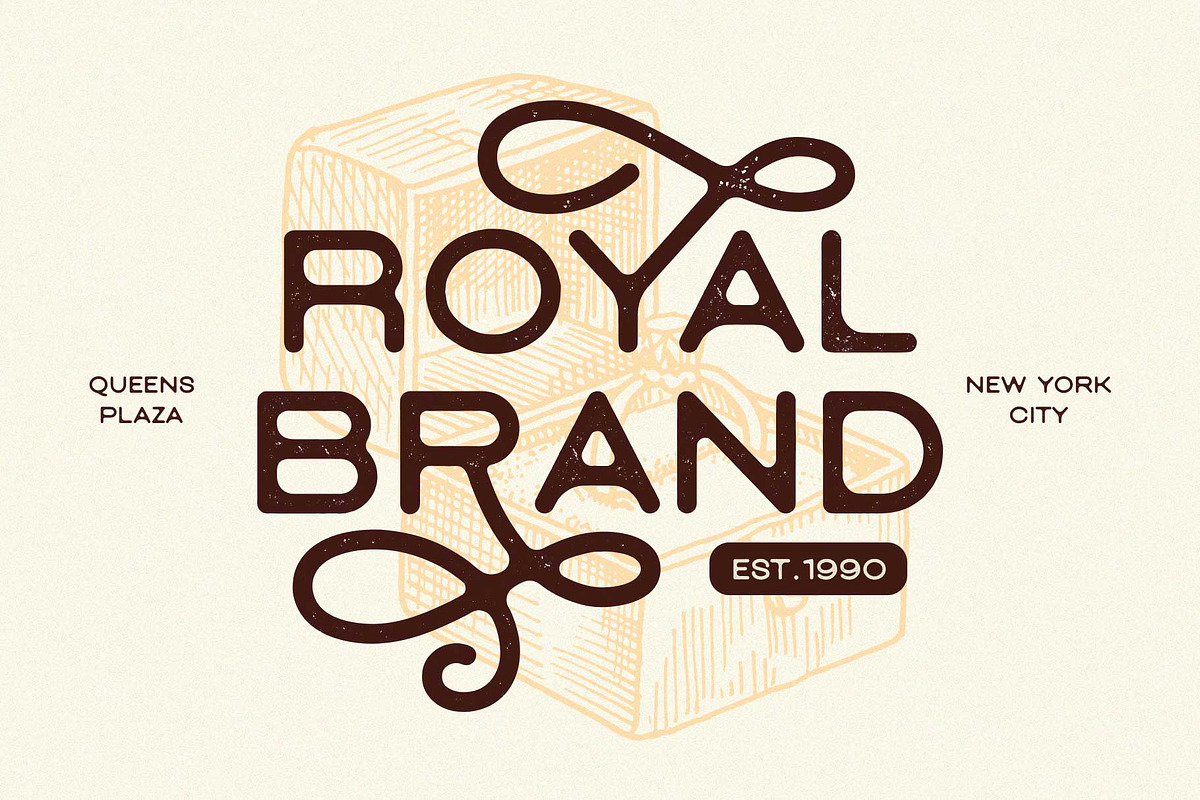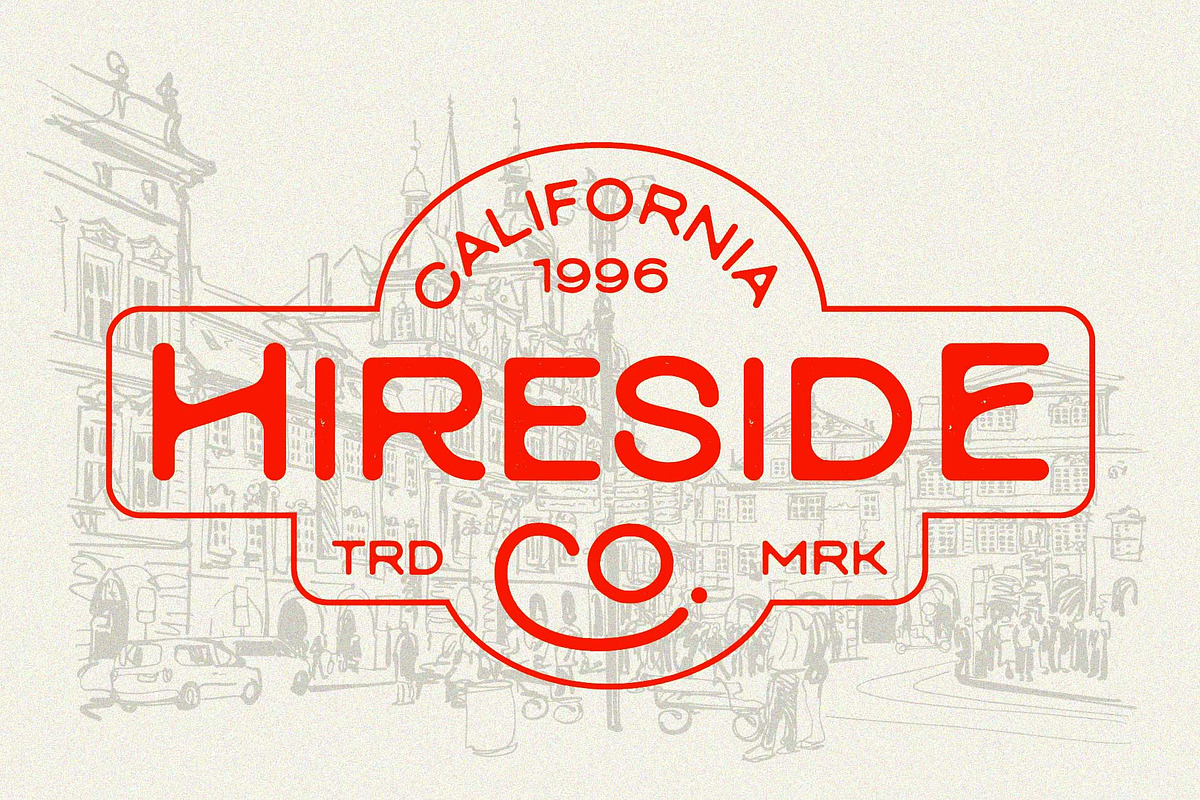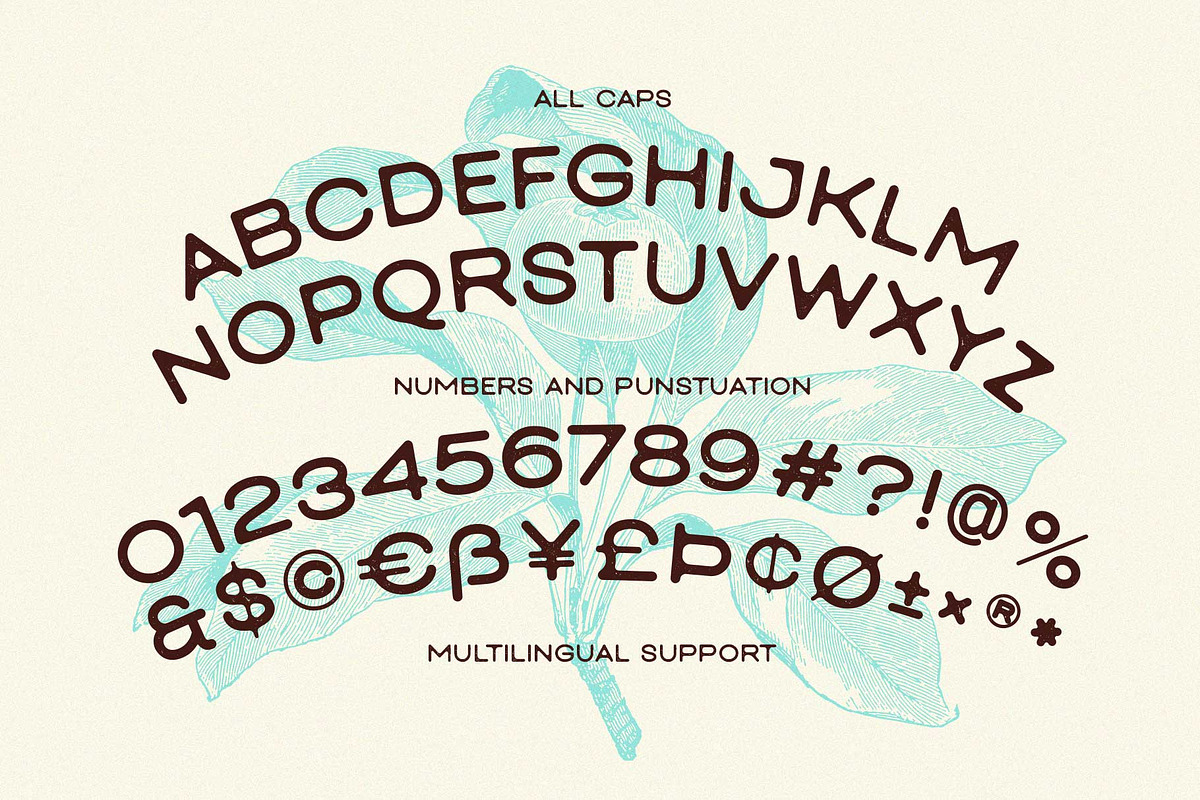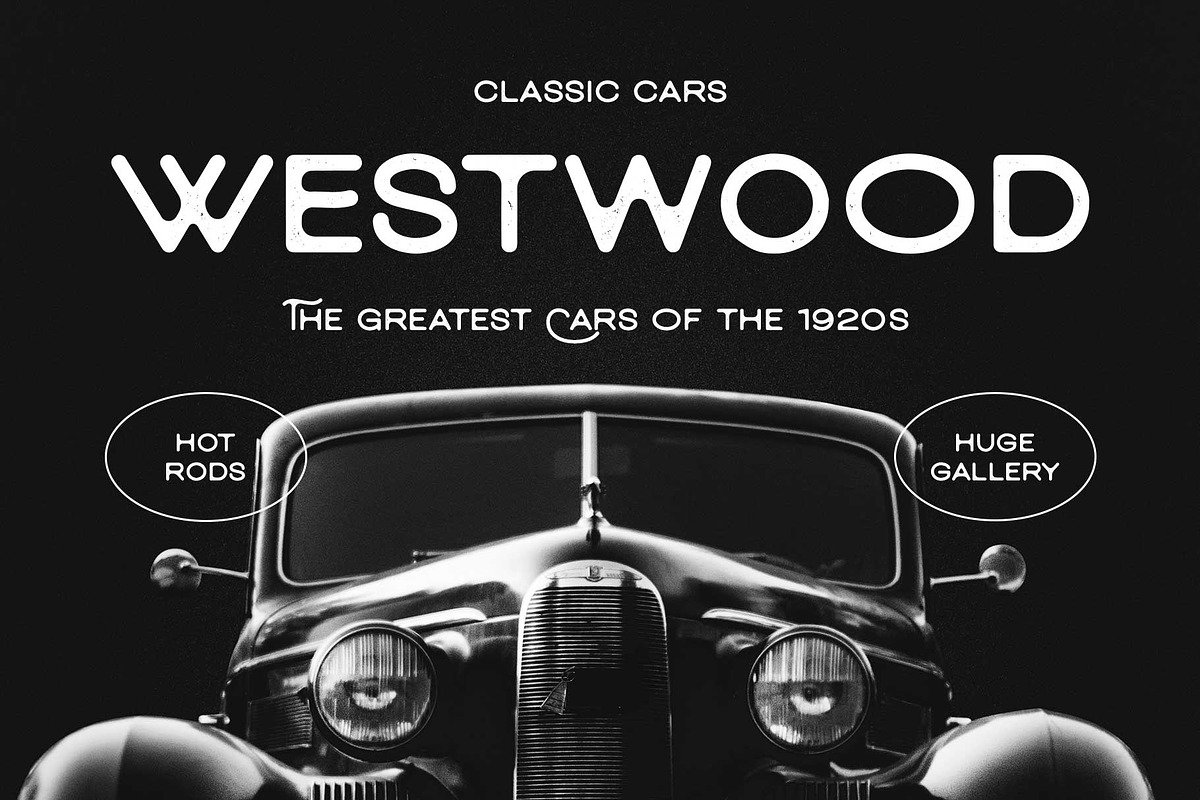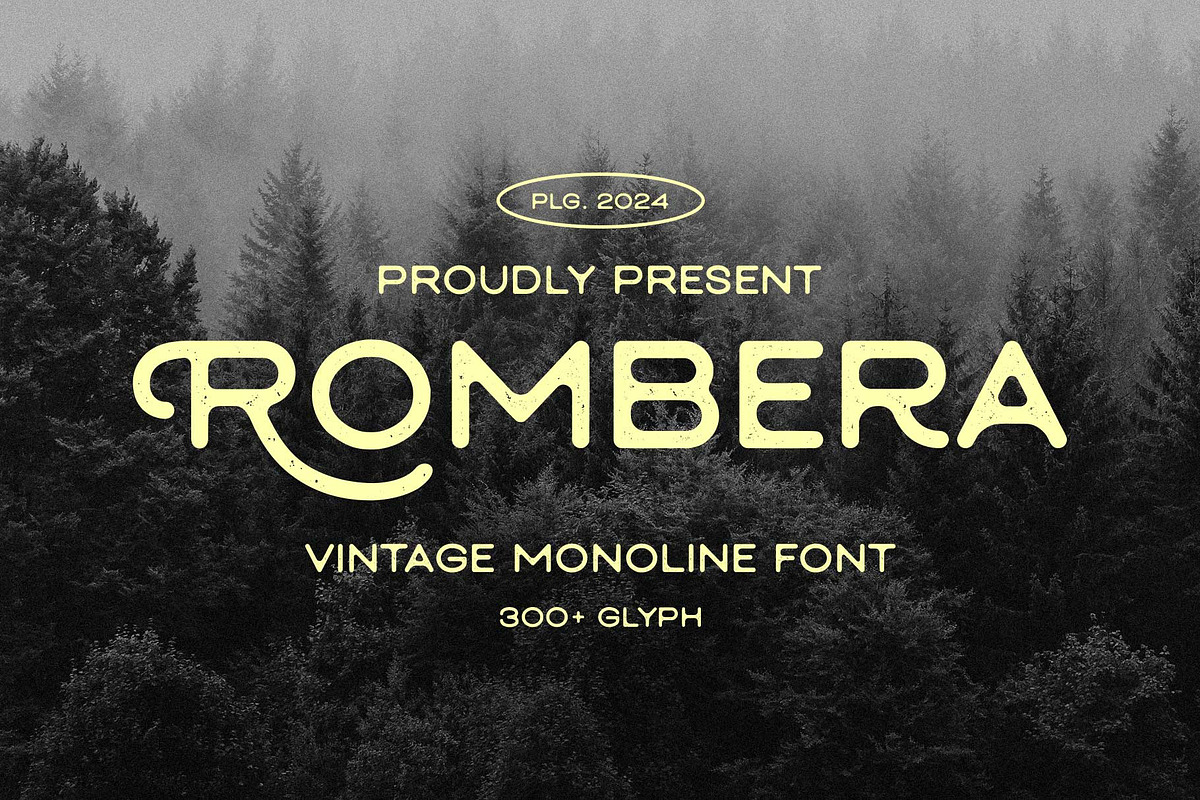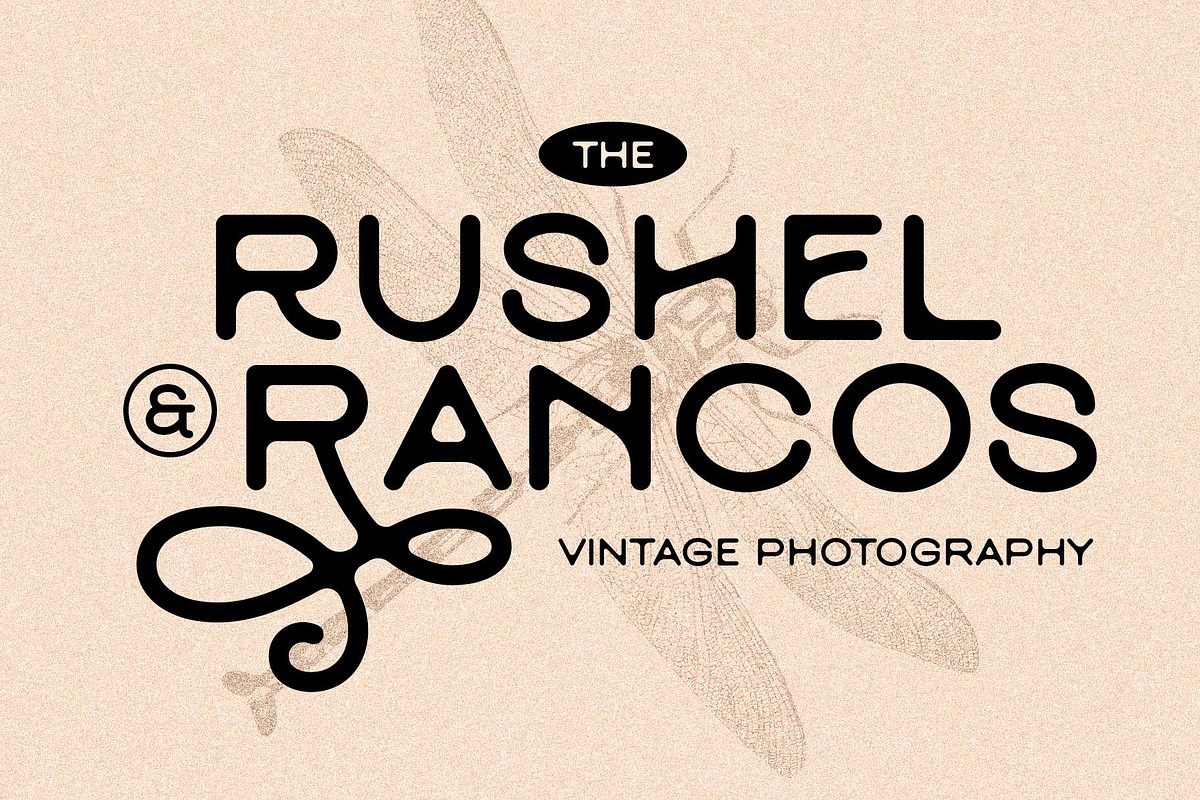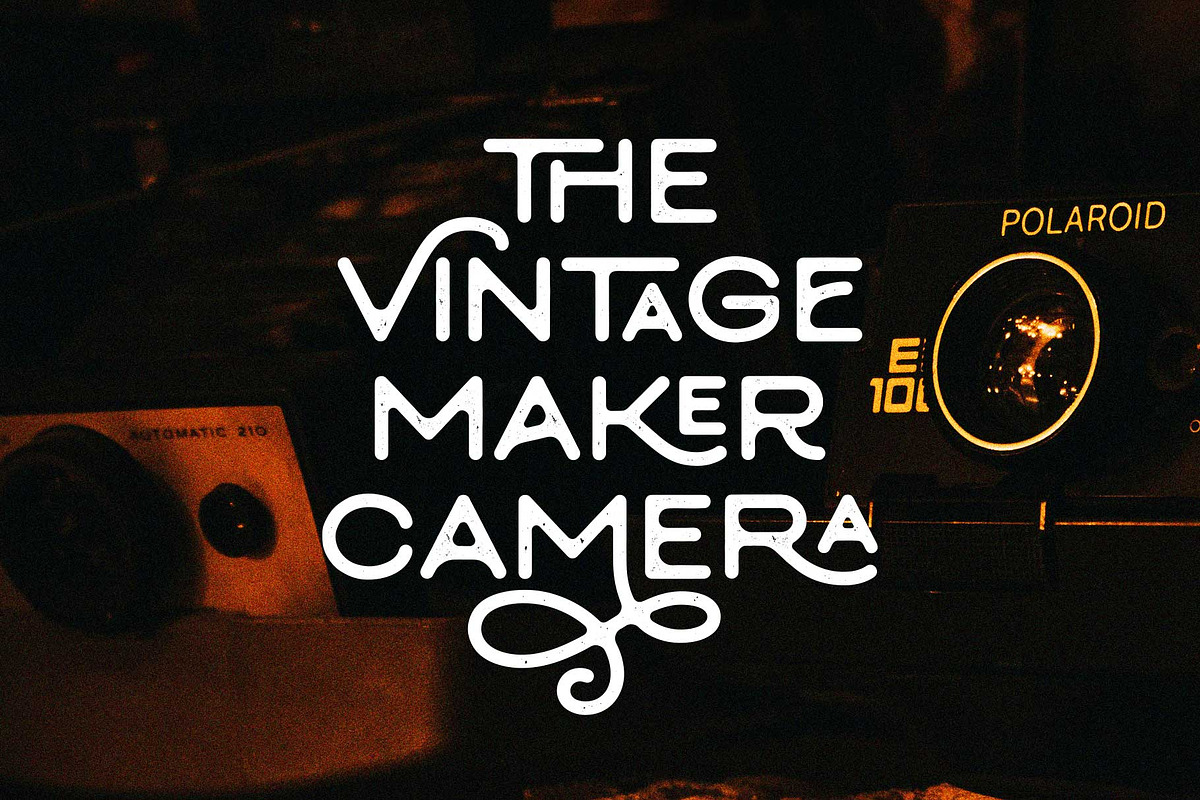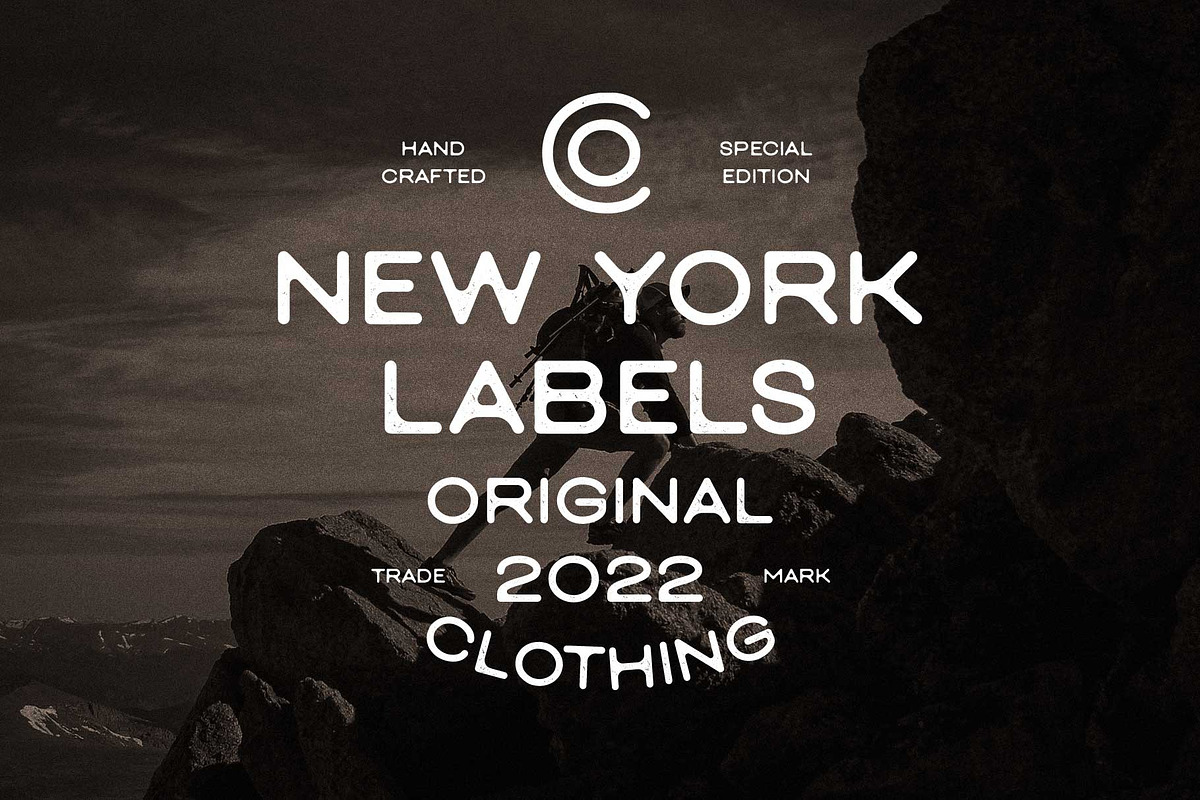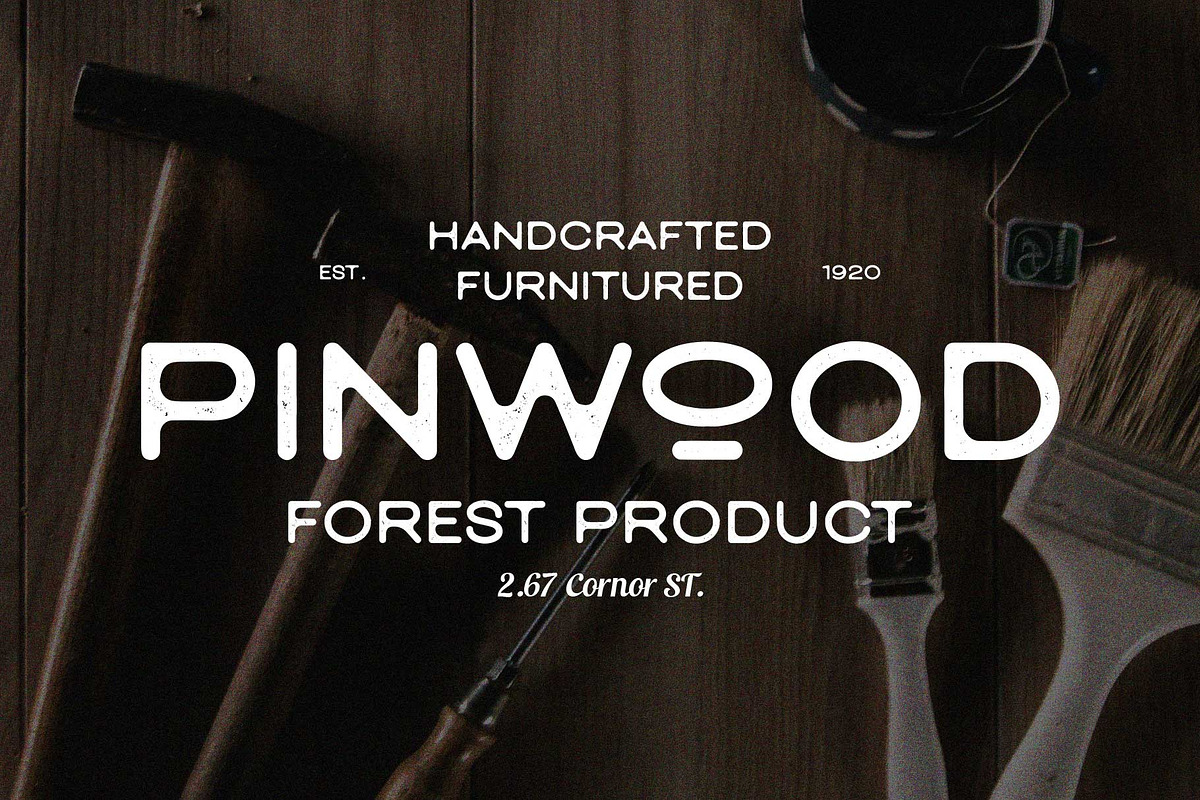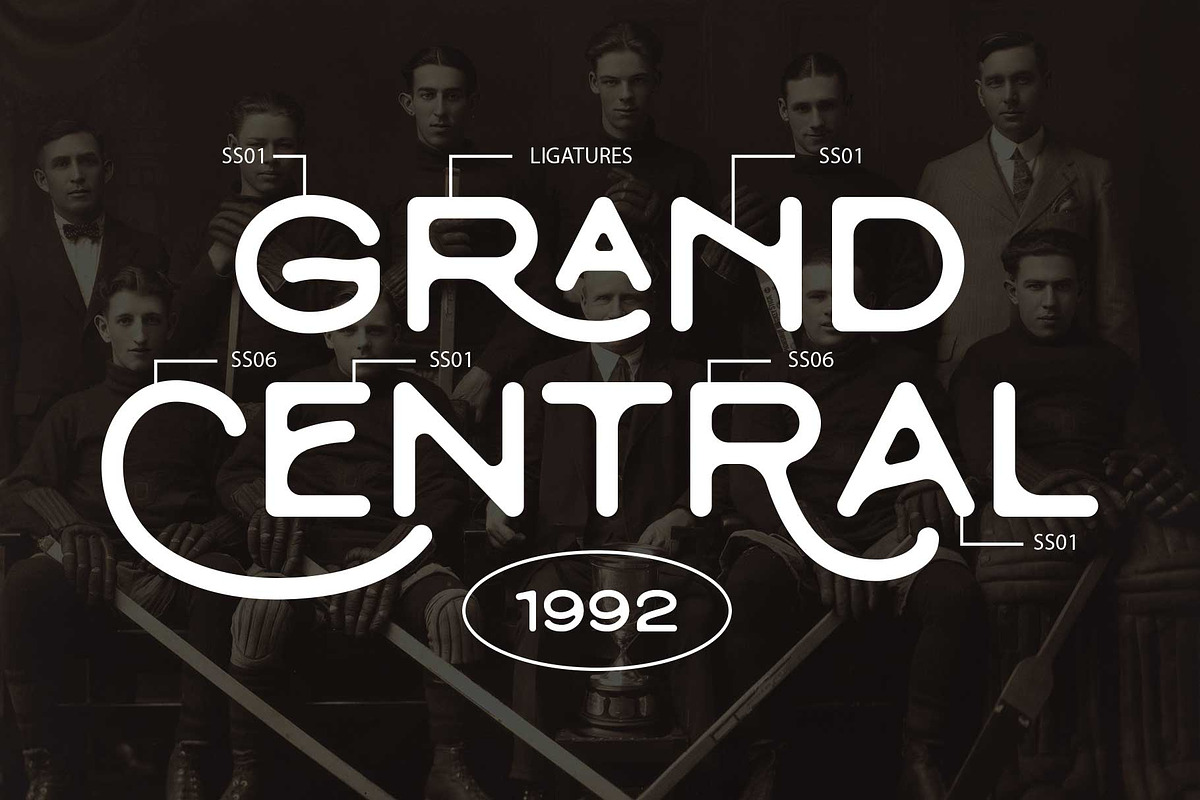
Rombera - Vintage Monoline
Introducing Rombera, a fancy vintage monoline font, inspired by the vintage signage that visualizes a letterpress/inky looks and modern calligraphy. Perfect for logos, apparel, labels, posters, quotes, signage, packaging, and more!
This font is an all-caps font, available in Regular and Distressed styles recommended for displays. Rombera has 350+ glyphs including many OpenType features that you can mix and match each character to get the more playful vintage typographic design.
- SS01 - SS13
- Custom Ligatures